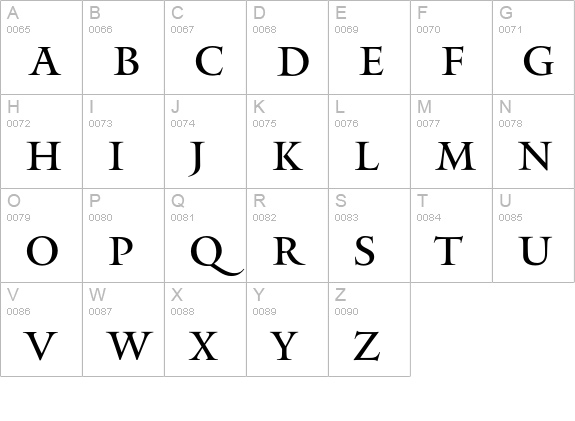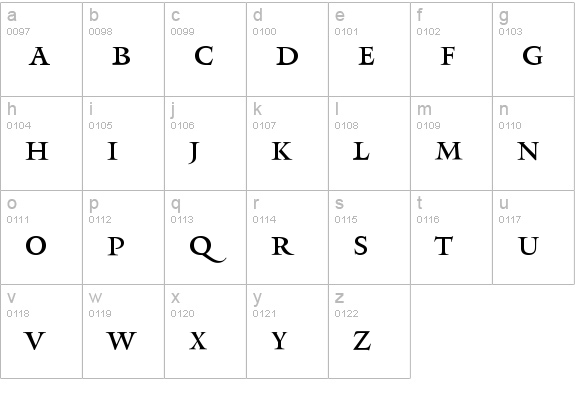
Mantinia Font Details
Introducing Mantinia, a beautifully crafted font that combines elegance and versatility. With its clean lines and distinct character, Mantinia is perfect for a wide range of design projects, from branding and advertising to editorial layouts and web design. This font exudes a timeless charm, making it suitable for both classic and modern aesthetics. Its refined letterforms exhibit a perfect balance between simplicity and sophistication, creating a harmonious visual experience. Mantinia's carefully designed curves and graceful strokes add a touch of elegance to any design it is applied to. One of the remarkable features of Mantinia is that it is freely available to download at FontsMarket.com. This means that designers and creatives can access this exquisite typeface without any cost, making it an invaluable asset for those seeking high-quality fonts without breaking the bank. Whether you are a professional designer looking to enhance your typography collection, or a beginner exploring the world of design, Mantinia offers a seamless and enjoyable experience. Its extensive character set supports multiple languages, ensuring that your message can be effectively communicated to a global audience. With Mantinia, each letter is meticulously designed to create a harmonious flow and visual rhythm, resulting in a text that is both visually pleasing and easy to read. Its versatility allows for various design applications, including headlines, body text, logos, and more. Download Mantinia today from FontsMarket.com, and unleash your creative potential with this exceptional font. Elevate your designs and captivate your audience with the elegance and versatility of Mantinia.